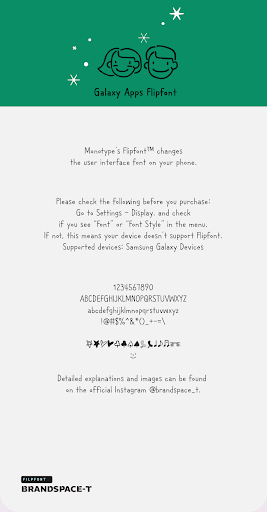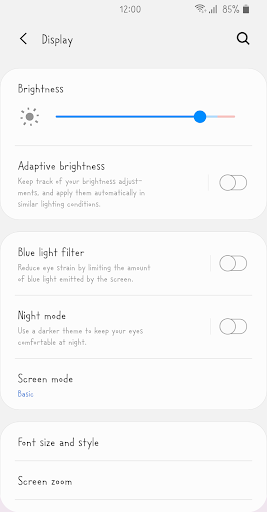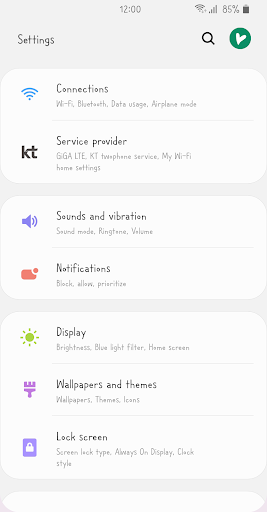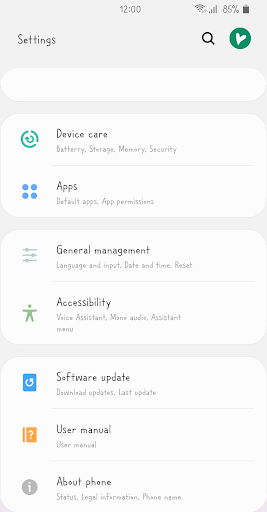
This typeface is 'I like us with comfort'. Let's be happy.' It's a letter that contains the calmness that has been written leisurely with an emotional feeling. The space is composed and structured so it is readable even in long letters. It's "Soon, My, My Brand." BSTStillLike.
+ Hidden special smile!
+ sign ♂ There is a boy and a ♀ girl!